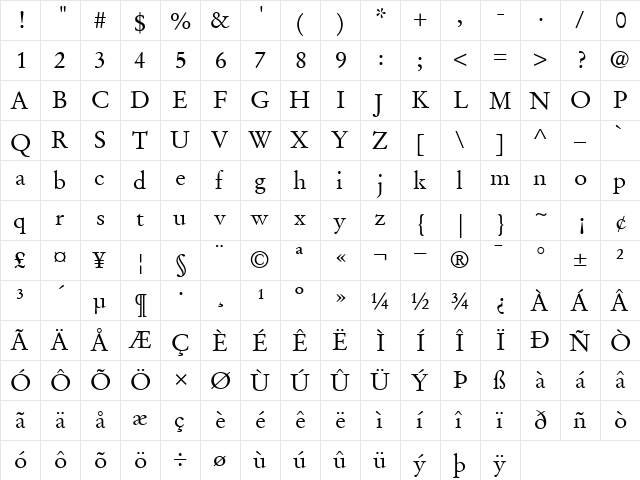
StempelGaramondRoman Roman
Design Context for StempelGaramondRoman Typeface
StempelGaramondRoman offers clean, dependable letterforms without strong stylistic allegiance, making it a practical choice for designers who need flexibility.
Pro Tip: Pair StempelGaramondRoman with a font of contrasting weight or personality to build a more expressive typographic hierarchy.